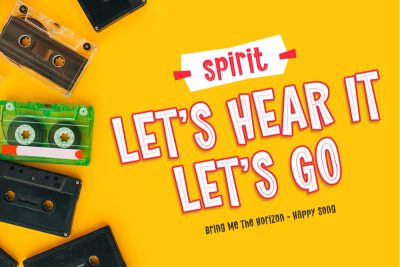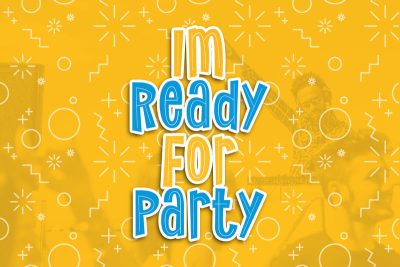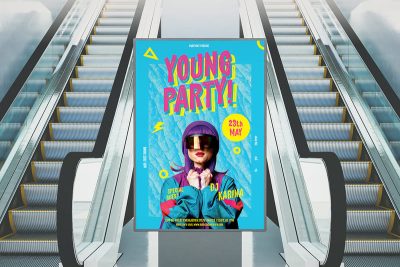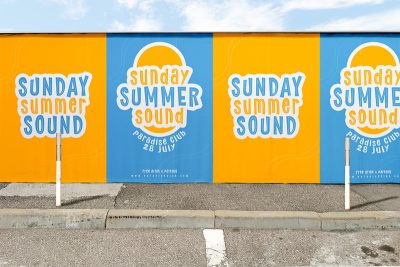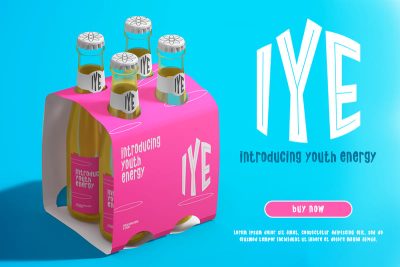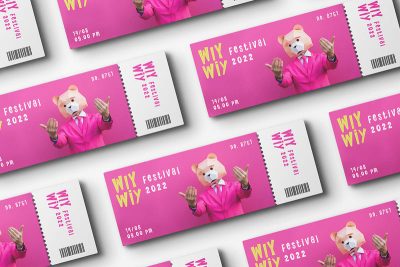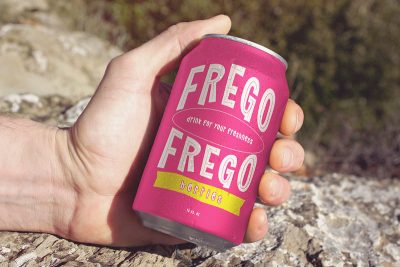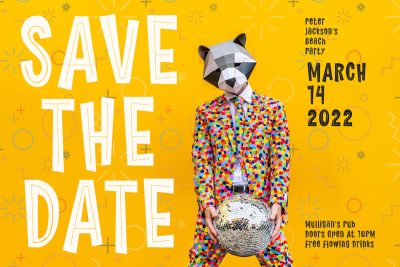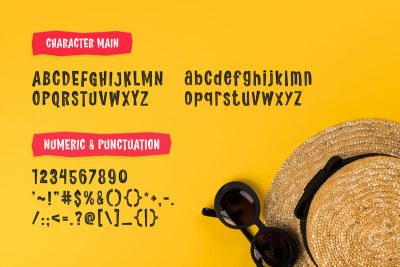
Funny Font Youth Energy is a vibrant, playful display font crafted to add excitement and a youthful touch to any project. With its bold, blocky letters and hand-drawn elements, itโs ideal for titles and headings that demand attention. Additionally, the lively design ensures your message stands out with both personality and clarity. Itโs perfect for designers wanting a fun, expressive style in branding, posters, social media graphics, or childrenโs books. Moreover, Youth Energyโs spirited tone helps your design feel approachable and full of life, especially when appealing to younger audiences.
Furthermore, Youth Energyโs exaggerated shapes and vibrant style capture the essence of playfulness. Each letter has its own unique flair, which sets it apart from standard fonts. Therefore, itโs a great choice for youth-focused projects like childrenโs products, educational materials, or event promotions. Whether for a back-to-school campaign, a party invite, or a summer sale, Youth Energy adds personality that elevates your design. In addition, it works well with bright colors and bold graphics, making it essential for designers who want to create memorable, impactful visuals.
Why Choose Funny Font Youth Energy for Your Next Project?
Youth Energy offers more than just style; it also makes designs truly memorable. Its playful details and youthful energy help brands connect with a dynamic audience. By adding Youth Energy to your font library, you gain a typeface thatโs both adaptable and distinct. Moreover, the fontโs bold strokes and rounded edges create a warm, friendly vibe, ideal for conveying positivity and energy.
For designers looking to add excitement, Youth Energy can easily transform simple text into something unforgettable. It pairs well with many styles and colors, allowing for endless creativity. Furthermore, its readability ensures that even playful designs communicate effectively. So, if your brand needs a burst of energy, Funny Font Youth Energy is the perfect choice.